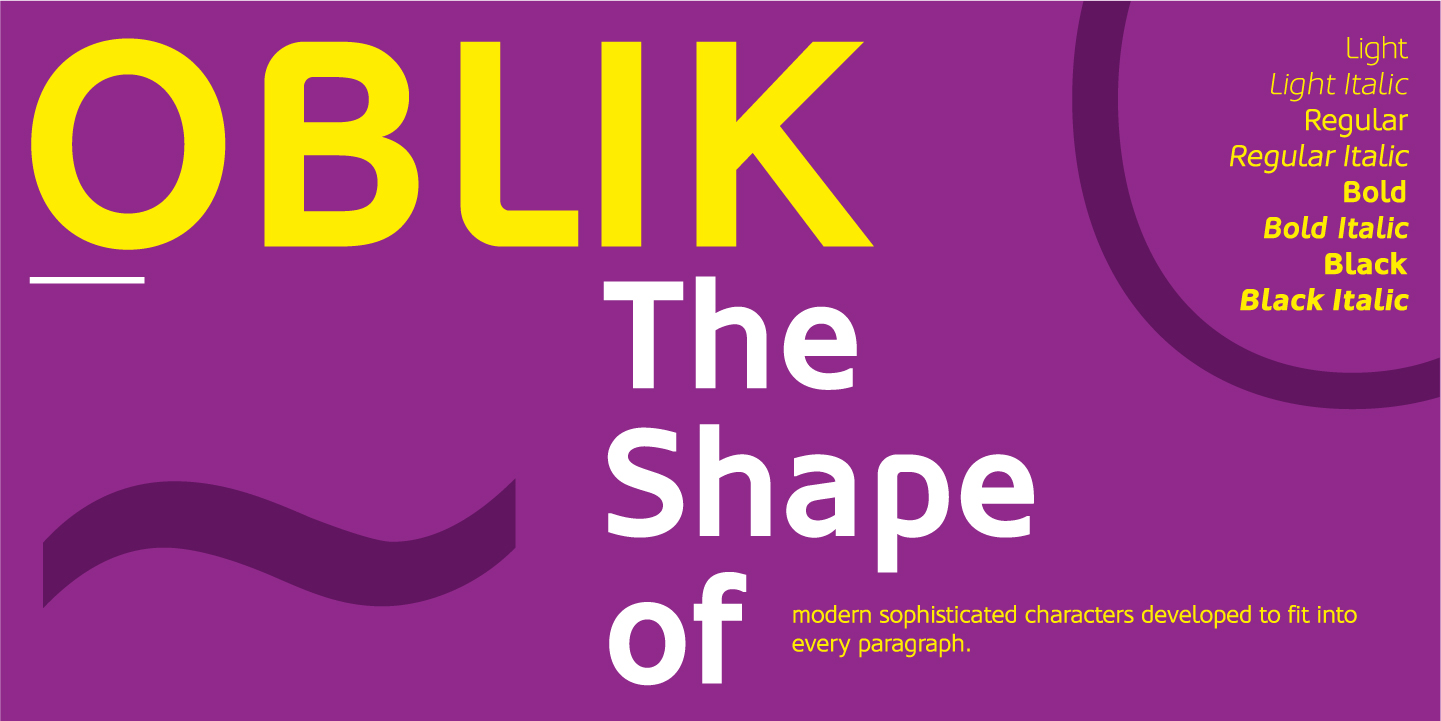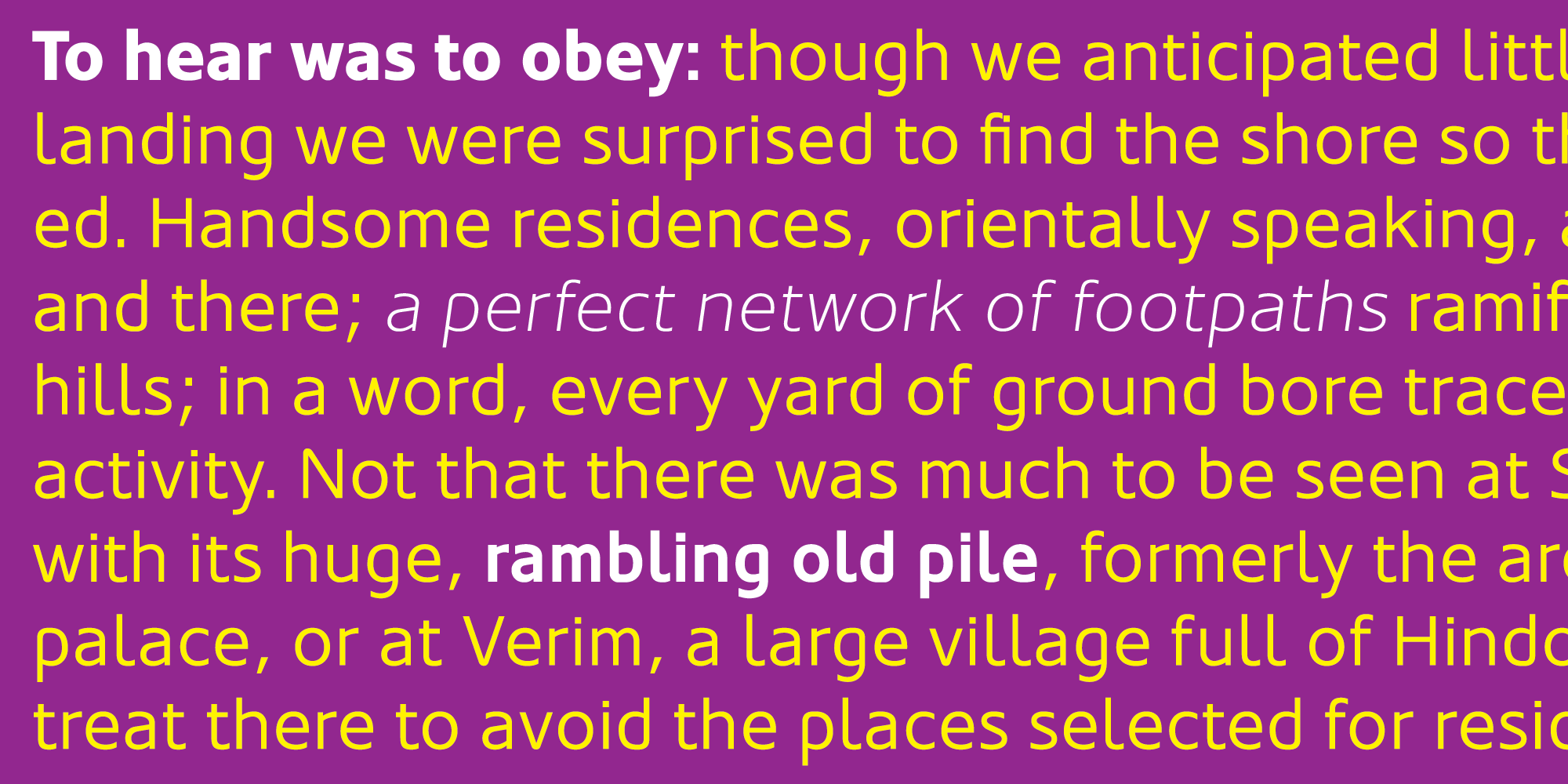
Like Refused said in their song "The Shape of new Punk to come", Oblik could be "The Shape of new Fonts to come", we present you our uprising star - Oblik - that could shine in your monitors.
Like Refused said in their song "The Shape of new Punk to come", Oblik could be "The Shape of new Fonts to come", we present you our uprising star - Oblik - that could shine in your monitors. Modern family, stylish and secure, with its own personality (it's photogenic, too), available for all kind of use, even you're an doctor or policeman or butcher or truck driver or maybe rock star, this font will rock your world.